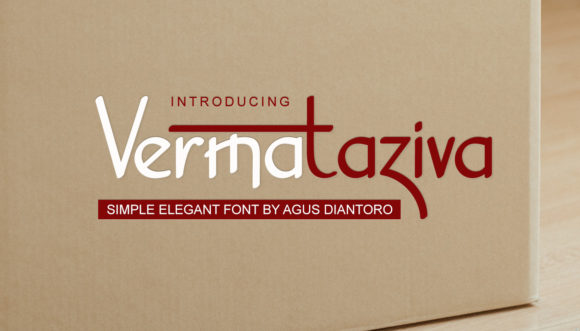
Prepare to be mesmerized by Vermataziva, an extraordinary display font that transcends boundaries, leaving you spellbound with its remarkable presence. This captivating font, meticulously crafted by agusdiantoro, is an embodiment of modernism, uniqueness, and beauty, a rare confluence that will transform your creative visions into stunning realities. Its captivating charm will leave you breathless, inviting you to unlock the realm of limitless possibilities.
With Vermataziva at your command, elevate your designs to unparalleled heights. Its striking curves and elegant lines effortlessly capture attention, making it an ideal choice for a wide array of projects. From awe-inspiring logos that demand attention to captivating posters that ignite emotions, Vermataziva possesses the versatility to adapt seamlessly to your design endeavors. Unleash your creativity and let this typographic masterpiece lead you to new horizons.
Indulge in the visual symphony of Vermataziva. Its intricate characters dance harmoniously on the page, creating a rhythm that resonates with your soul. Whether you're crafting enchanting invitations that set the mood for special occasions or crafting captivating social media posts that ignite engagement, Vermataziva is your trusted ally, amplifying your message with an unforgettable visual impact. Prepare to witness the transformation as ordinary words morph into captivating expressions, captivating your audience with their allure.
Beyond its undeniable aesthetic allure, Vermataziva is a font engineered for ease of use. Its carefully considered design ensures smooth integration into your workflow, enabling you to effortlessly elevate your designs without sacrificing precious time. Its exceptional readability, even at smaller sizes, makes it a practical choice for a spectrum of applications, from website design to captivating presentations. Experience the seamless fusion of form and function as Vermataziva empowers you to work smarter, not harder.
Embark on a typographic adventure with Vermataziva today and discover the transformative power of this remarkable display font. Your creative journey awaits, filled with endless opportunities to captivate and inspire. Let Vermataziva be your muse, unlocking the boundless potential within your imagination. As you witness your designs flourish with newfound brilliance, you'll realize the true value of a font that transcends the ordinary, leaving an indelible mark on your creative endeavors.